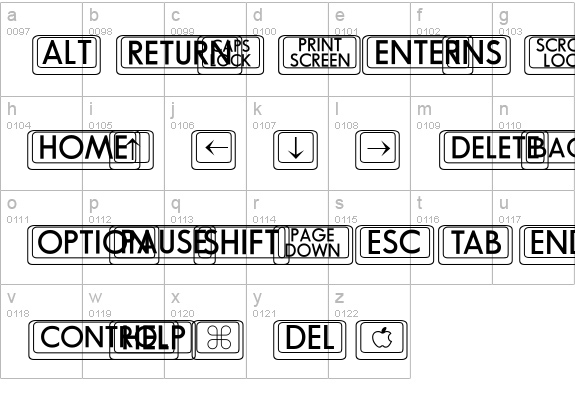
DavysBigKeyCaps font is a bold and eye-catching typeface that is perfect for adding a touch of personality to any design. With its oversized key cap style, this font is sure to make a statement and grab the attention of your audience. Whether you're looking to create a fun poster, eye-catching social media graphics, or unique branding materials, DavysBigKeyCaps font has got you covered. The best part? DavysBigKeyCaps font is completely free to download at FontsMarket.com. That's right, you can add this striking font to your collection without spending a penny. So why wait? Download DavysBigKeyCaps font today and start creating stunning designs that stand out from the crowd!